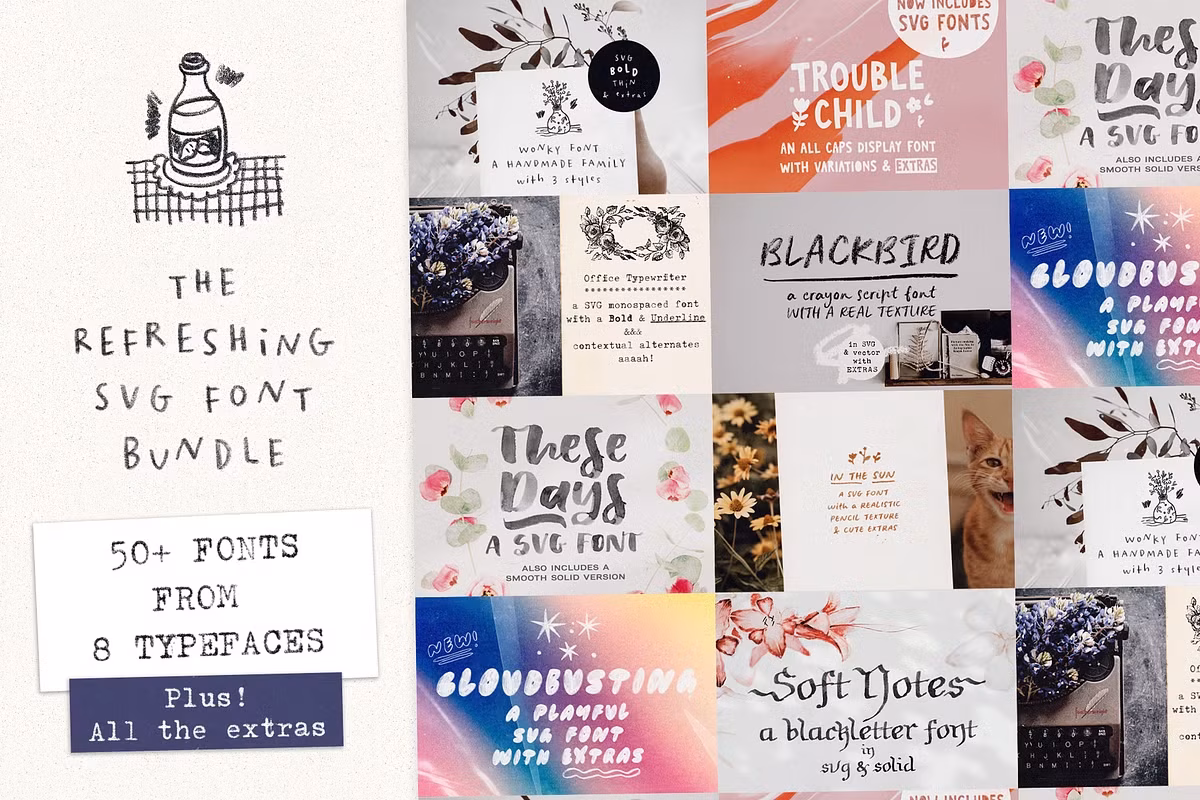
The SVG Font Bundle Free Download
The SVG Font Bundle Free Download is a comprehensive collection of unique and creative fonts, designed with SVG technology to add vibrant colors and detailed textures to your designs. This bundle includes a variety of fun and stylish fonts perfect for logos, invitations, posters, and social media content. Whether you’re working on a playful brand, a creative campaign, or a special event, The SVG Font Bundle Free Download offers endless possibilities with its bold, expressive designs. Experiment with these colorful fonts in personal projects before purchasing a commercial license and bring a new dimension of creativity and flair to your designs with this dynamic and versatile font bundle.